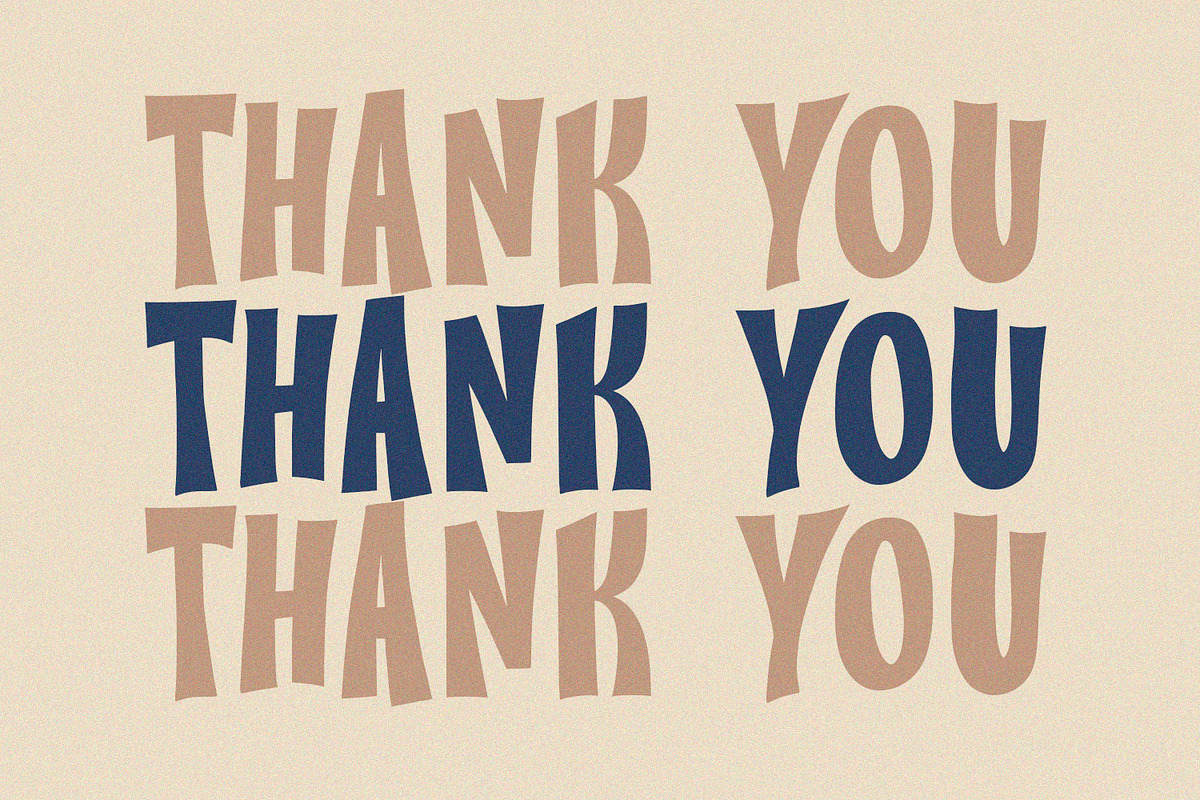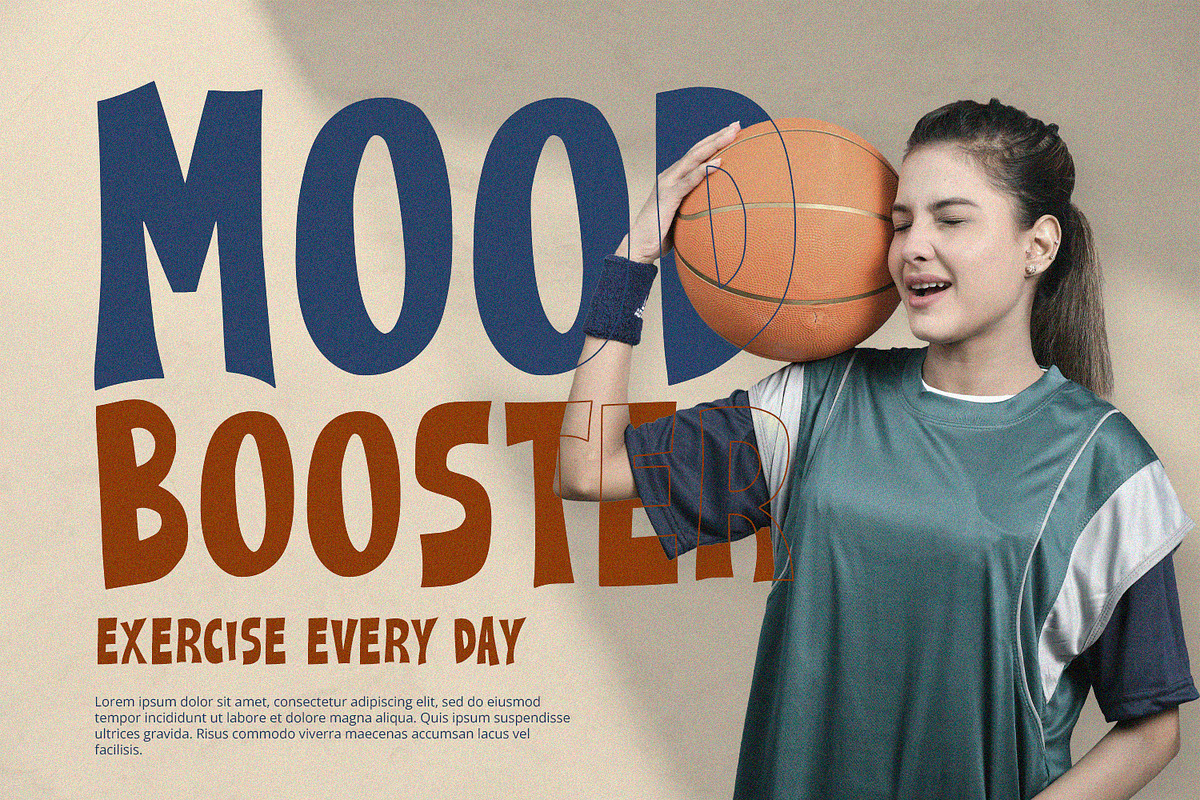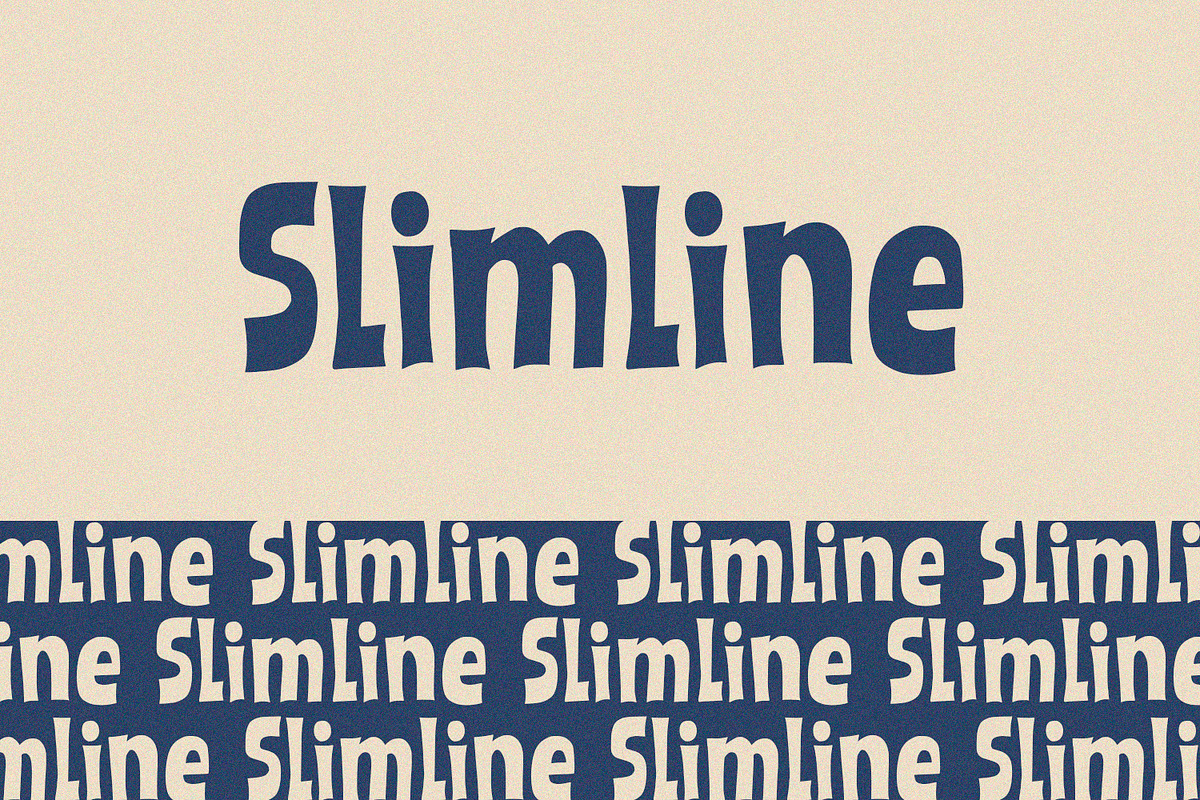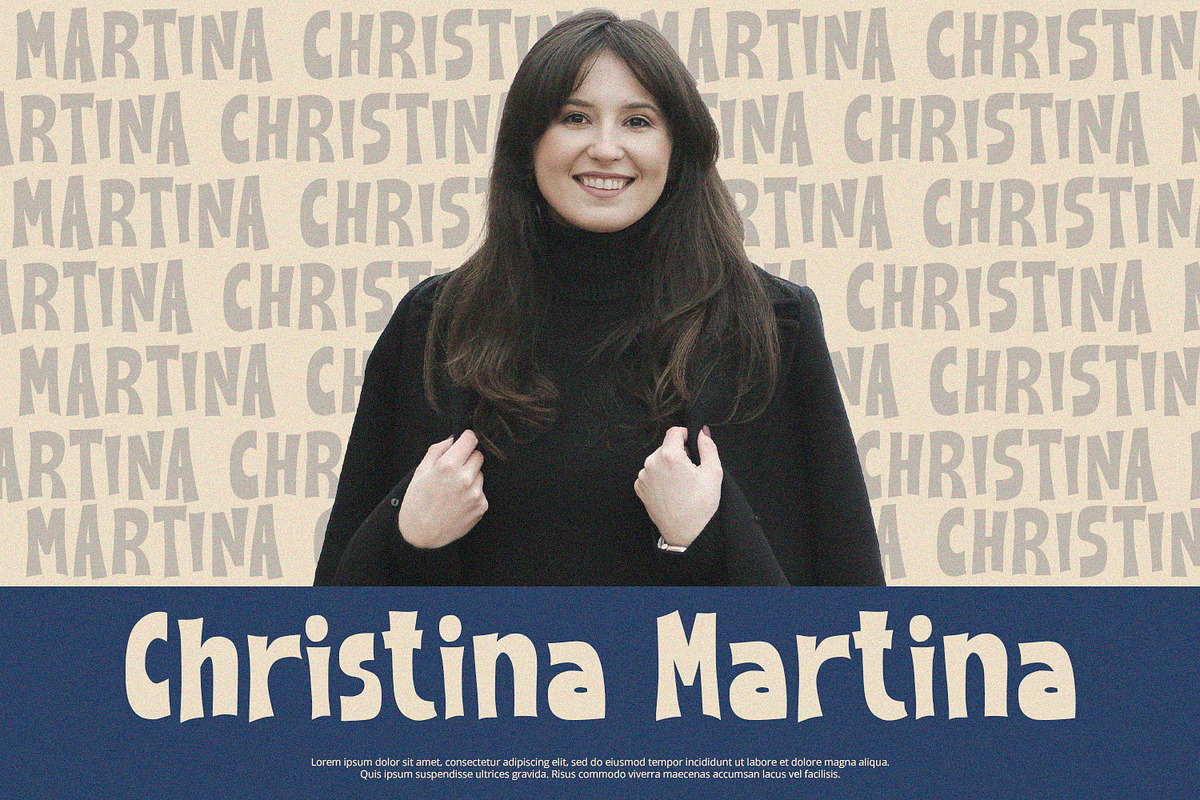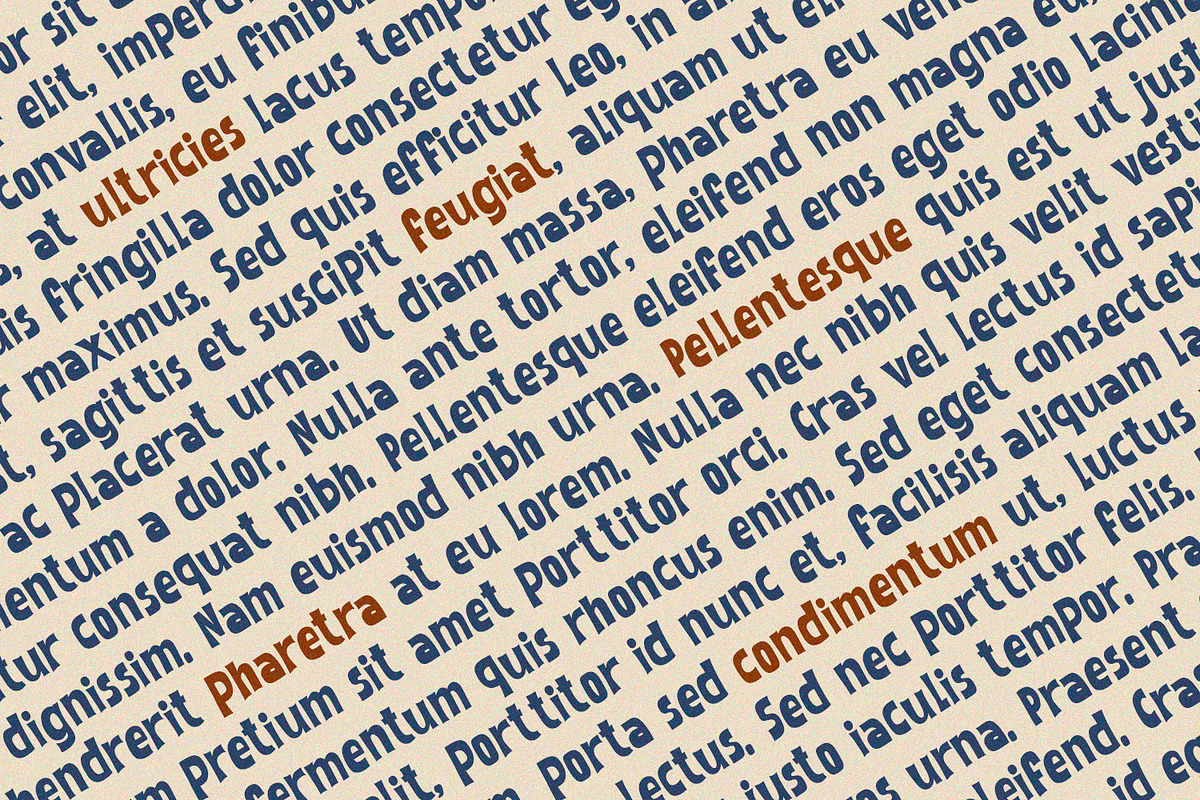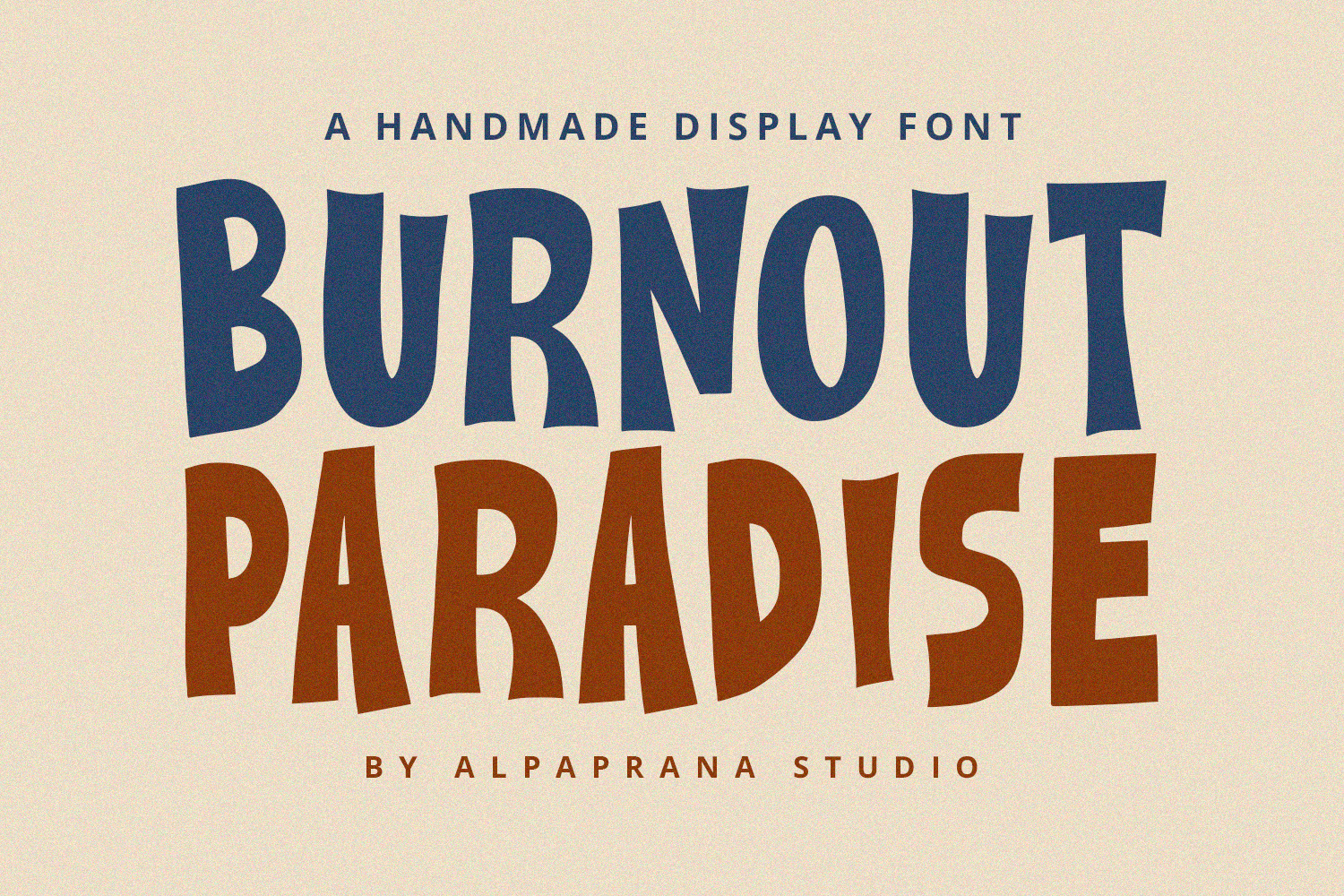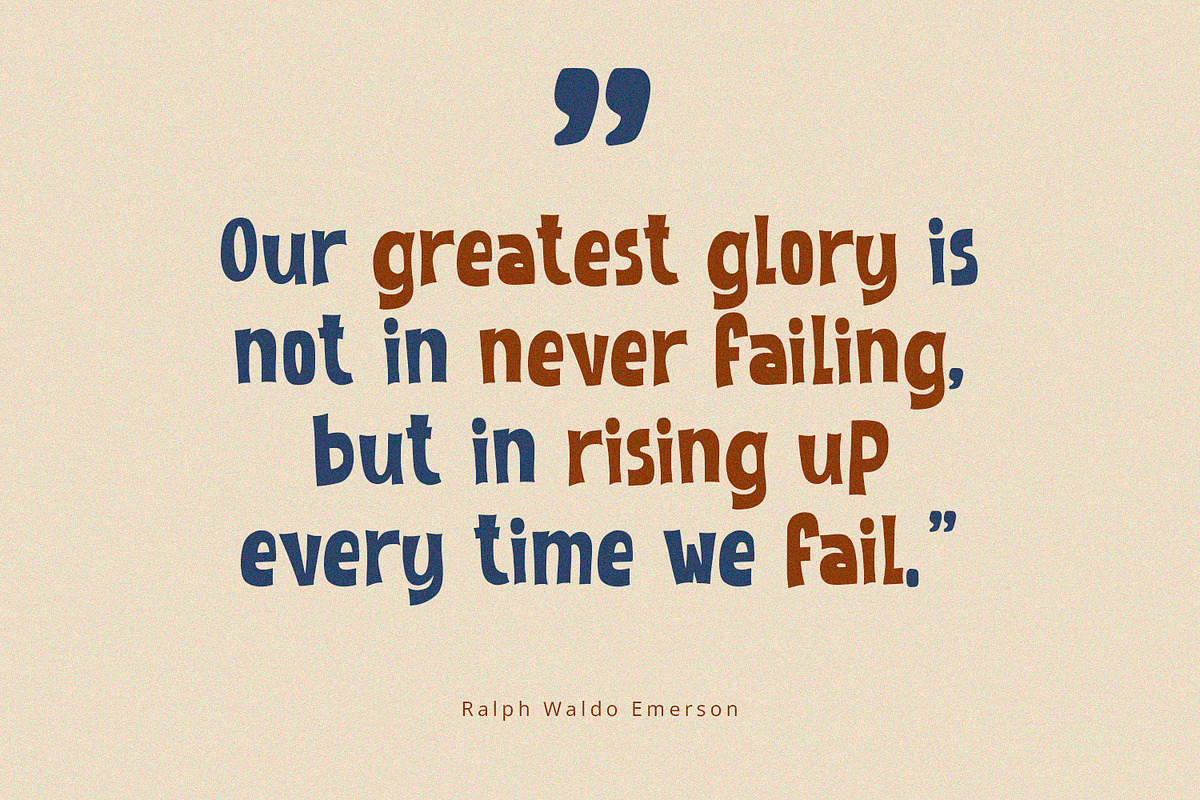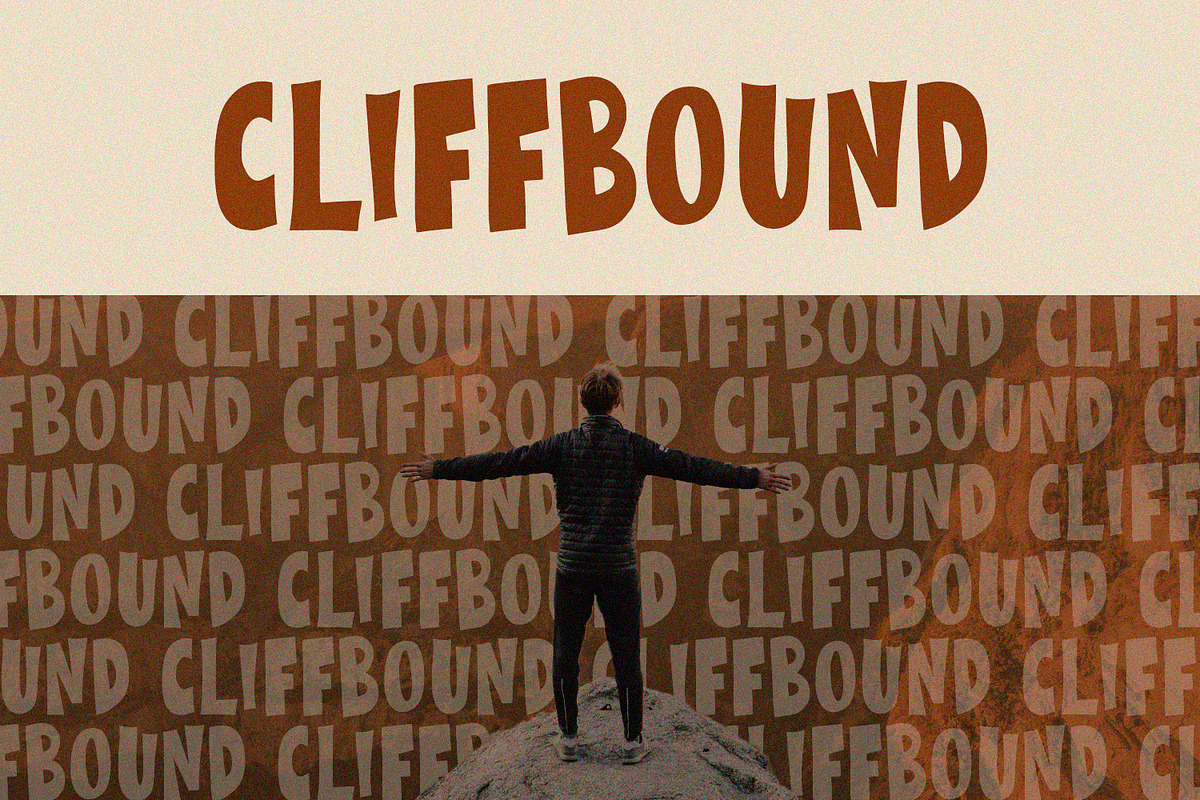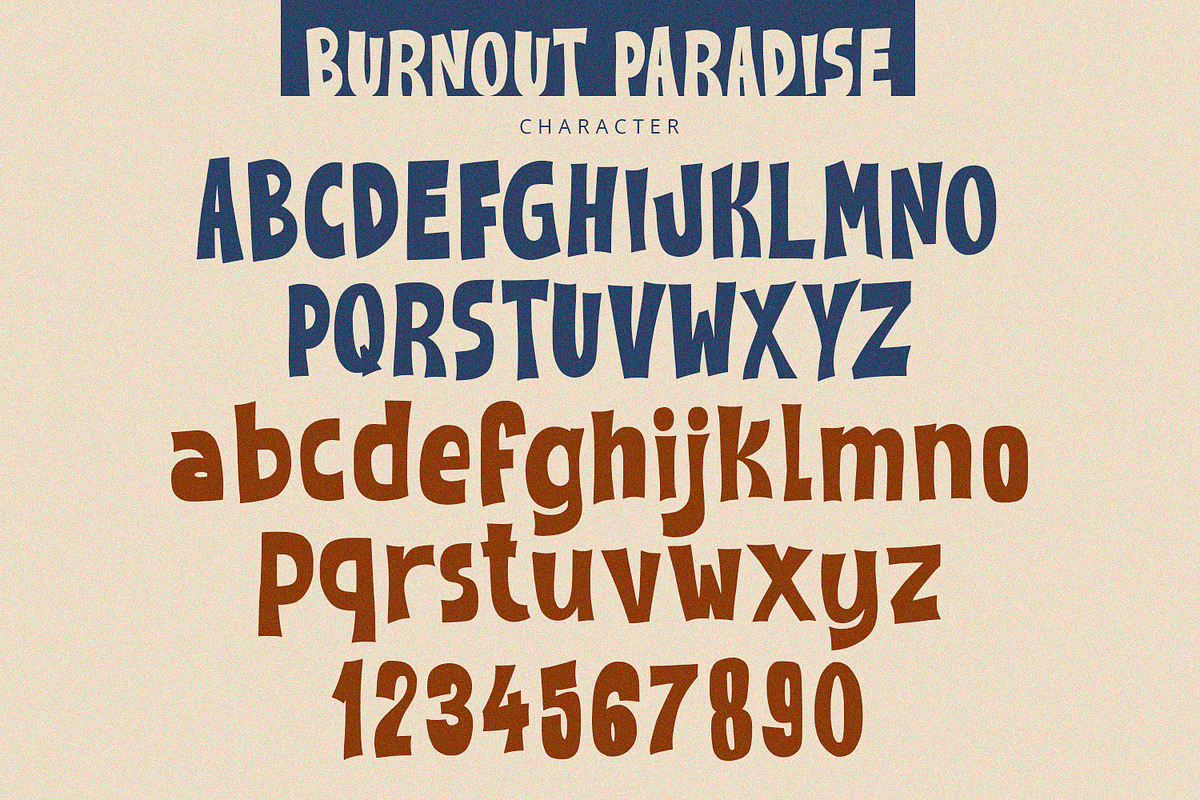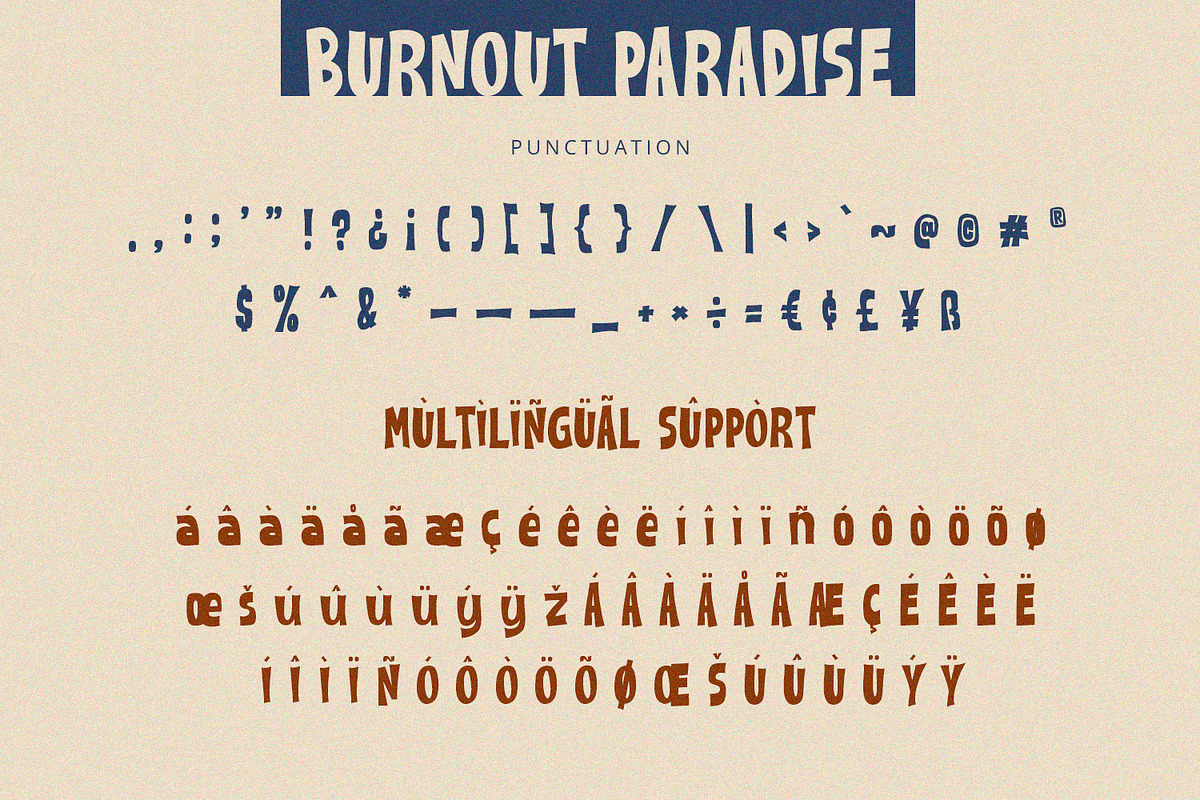
Burnout Paradise - Display Font
Burnout Paradise is bold display font with cute and playful feels. It will be perfectly used for Branding, Logo Design, Lettering, Logotype, Clothing, Poster, magazine, packaging, posters, shopping bags, t-shirts, book covers, photography, special events and other design project.